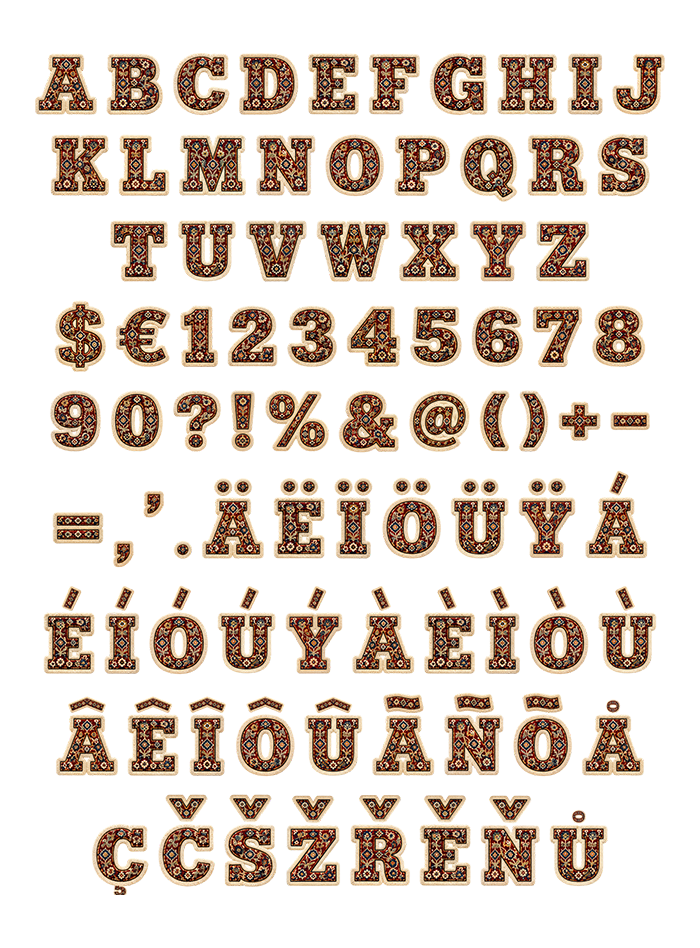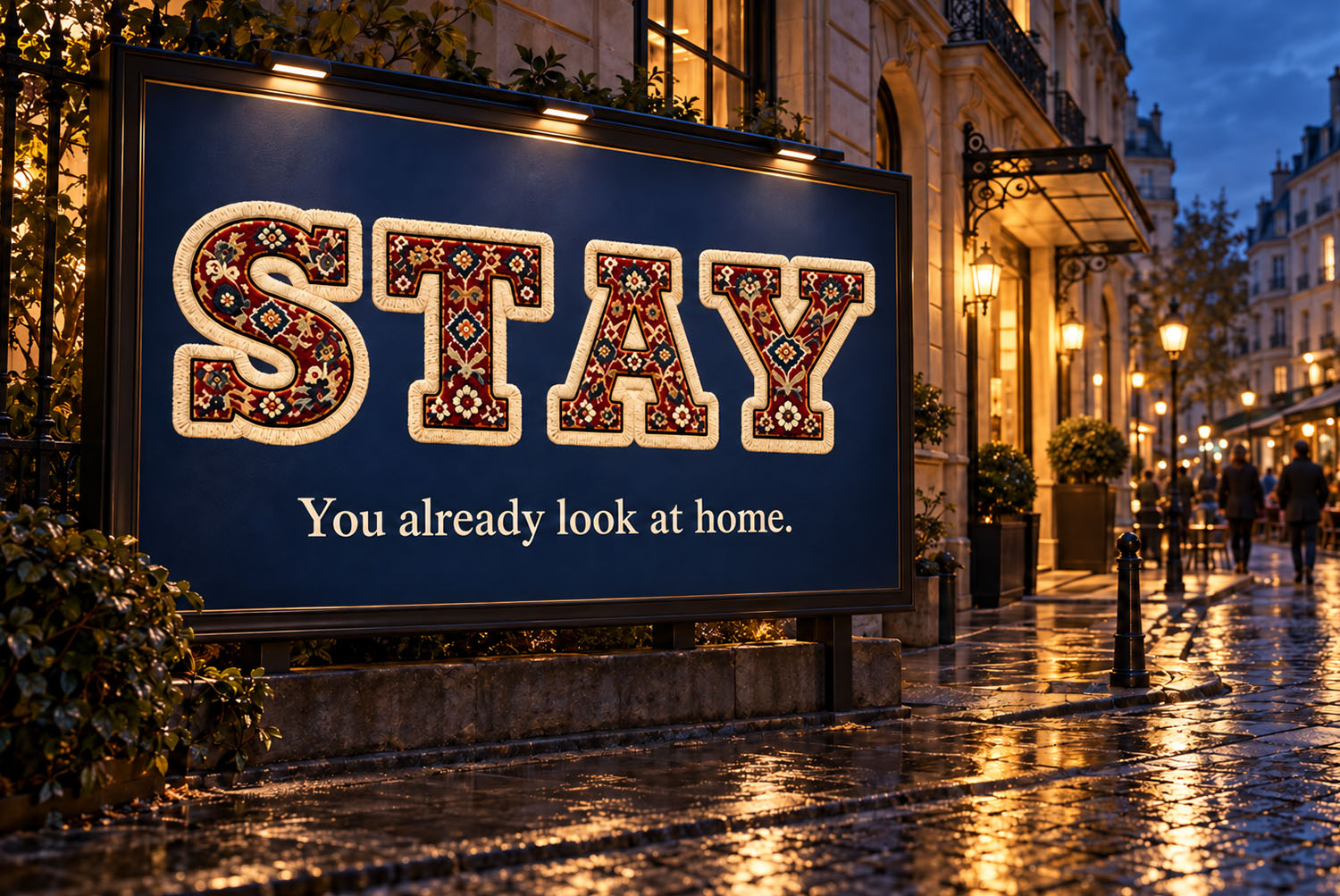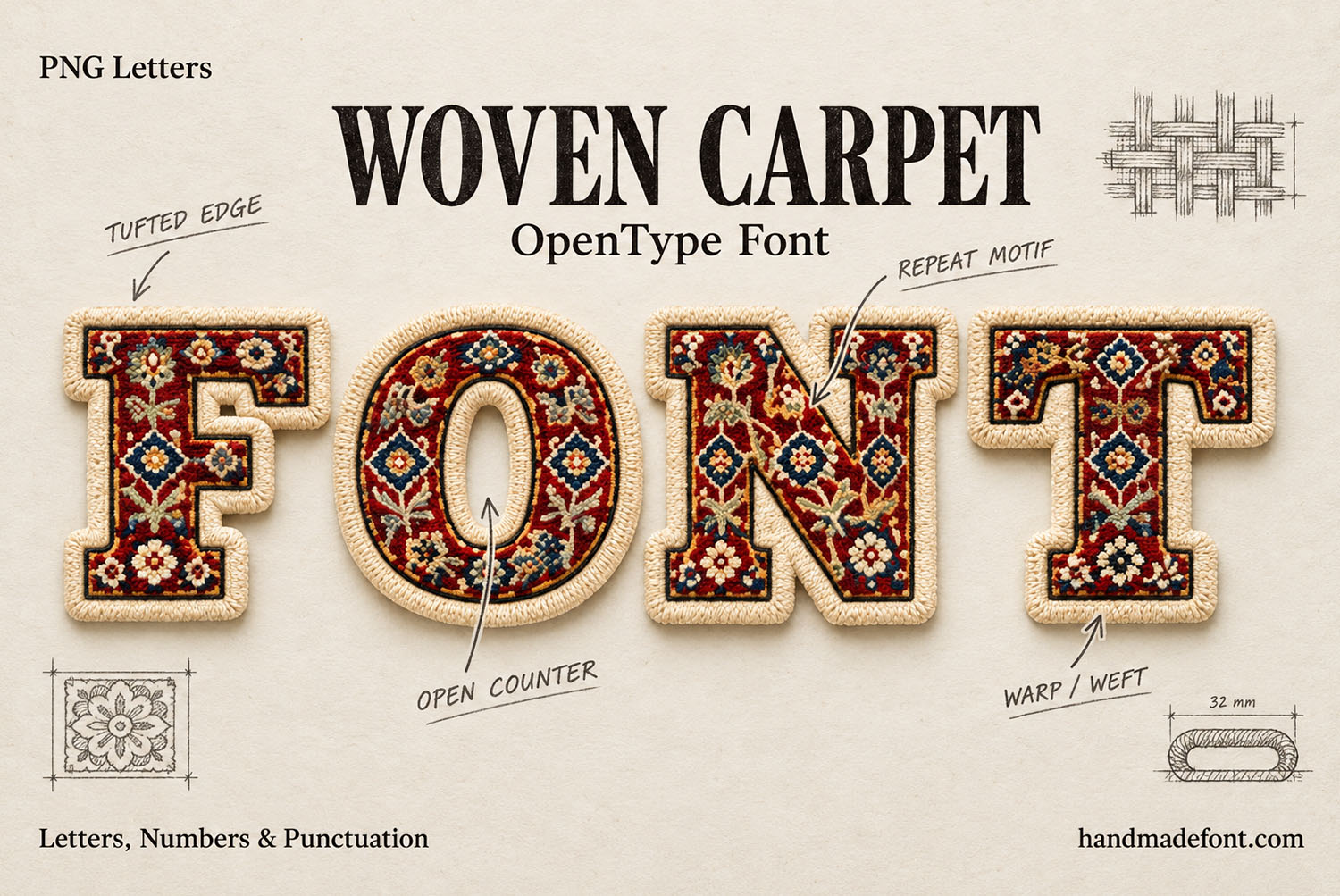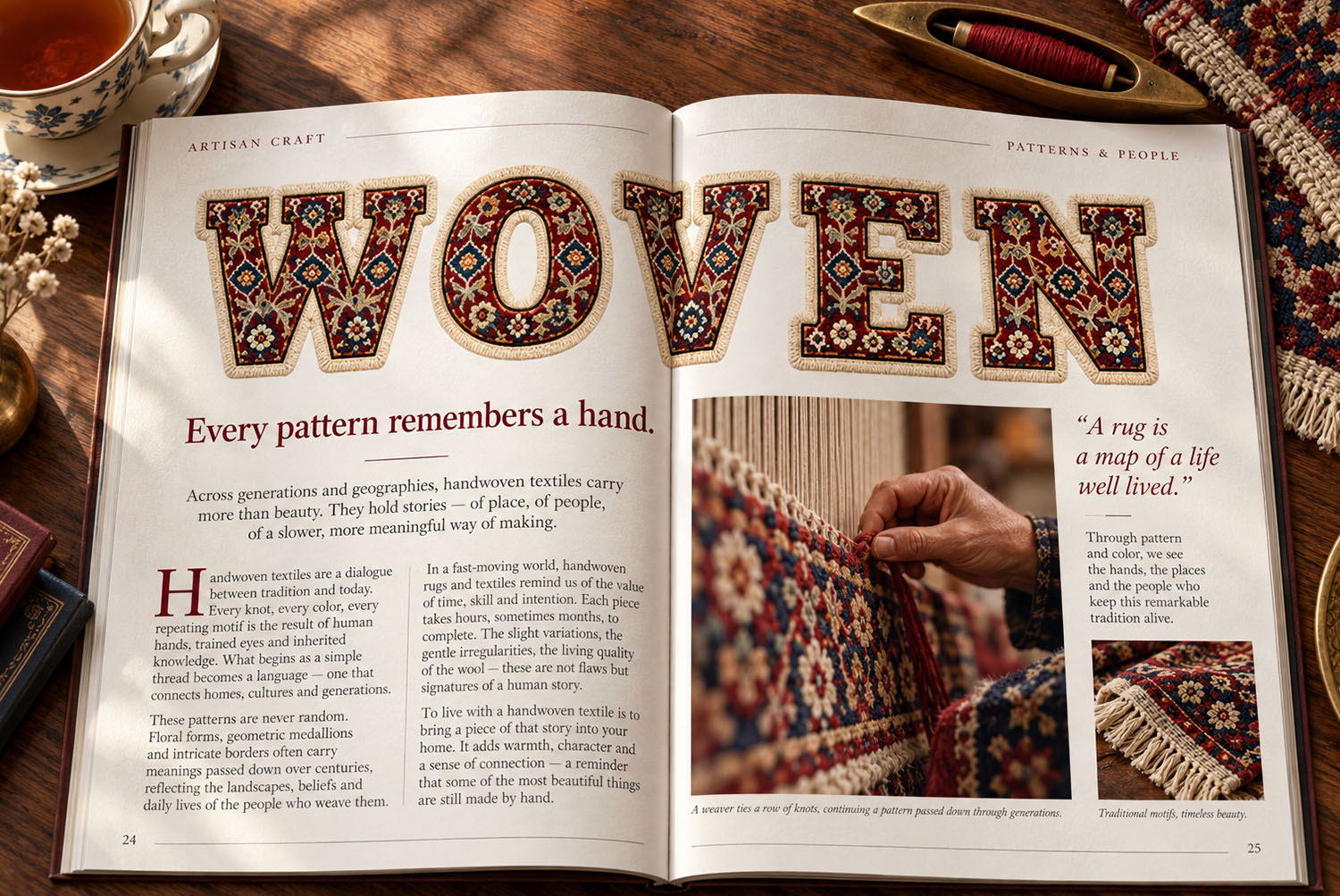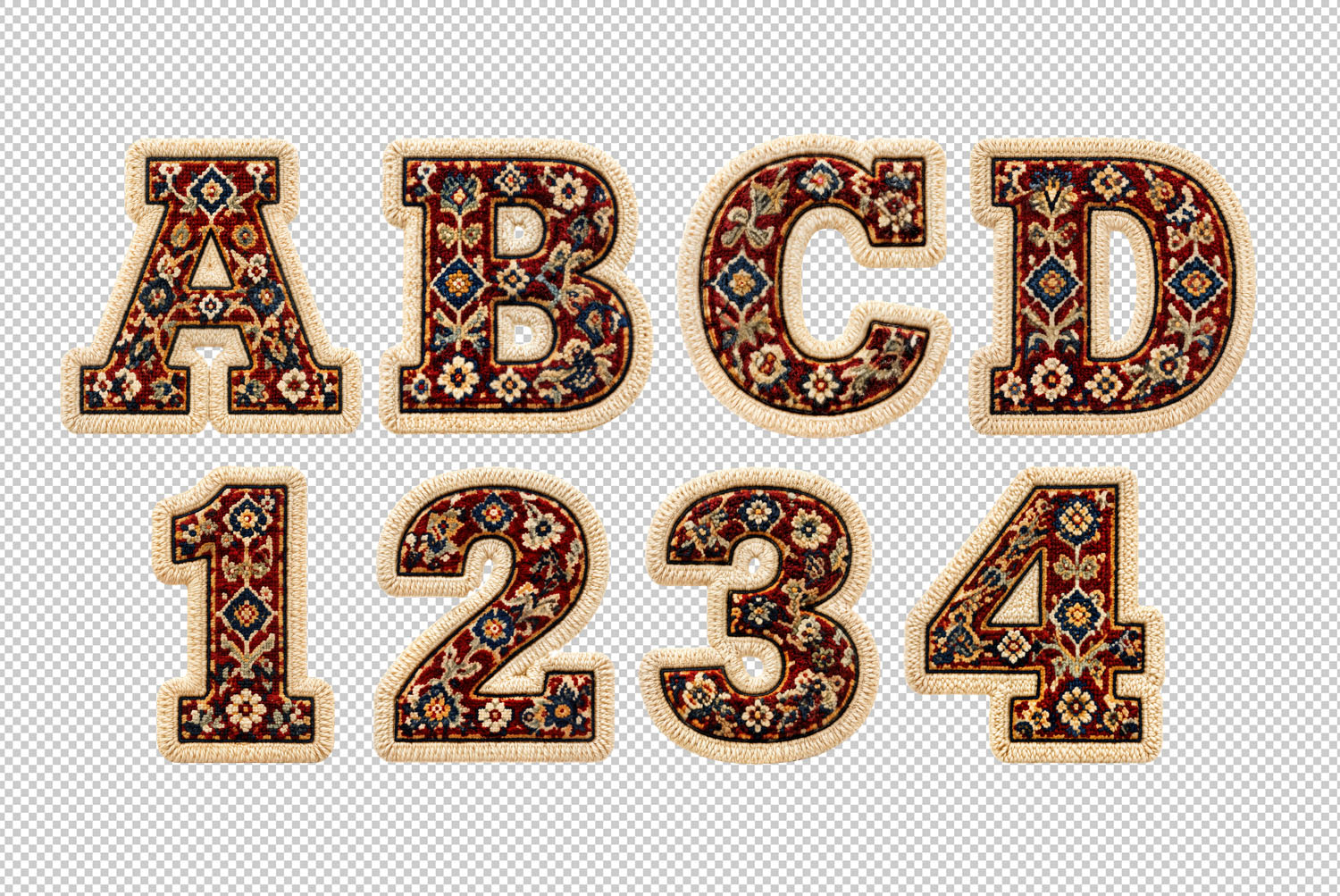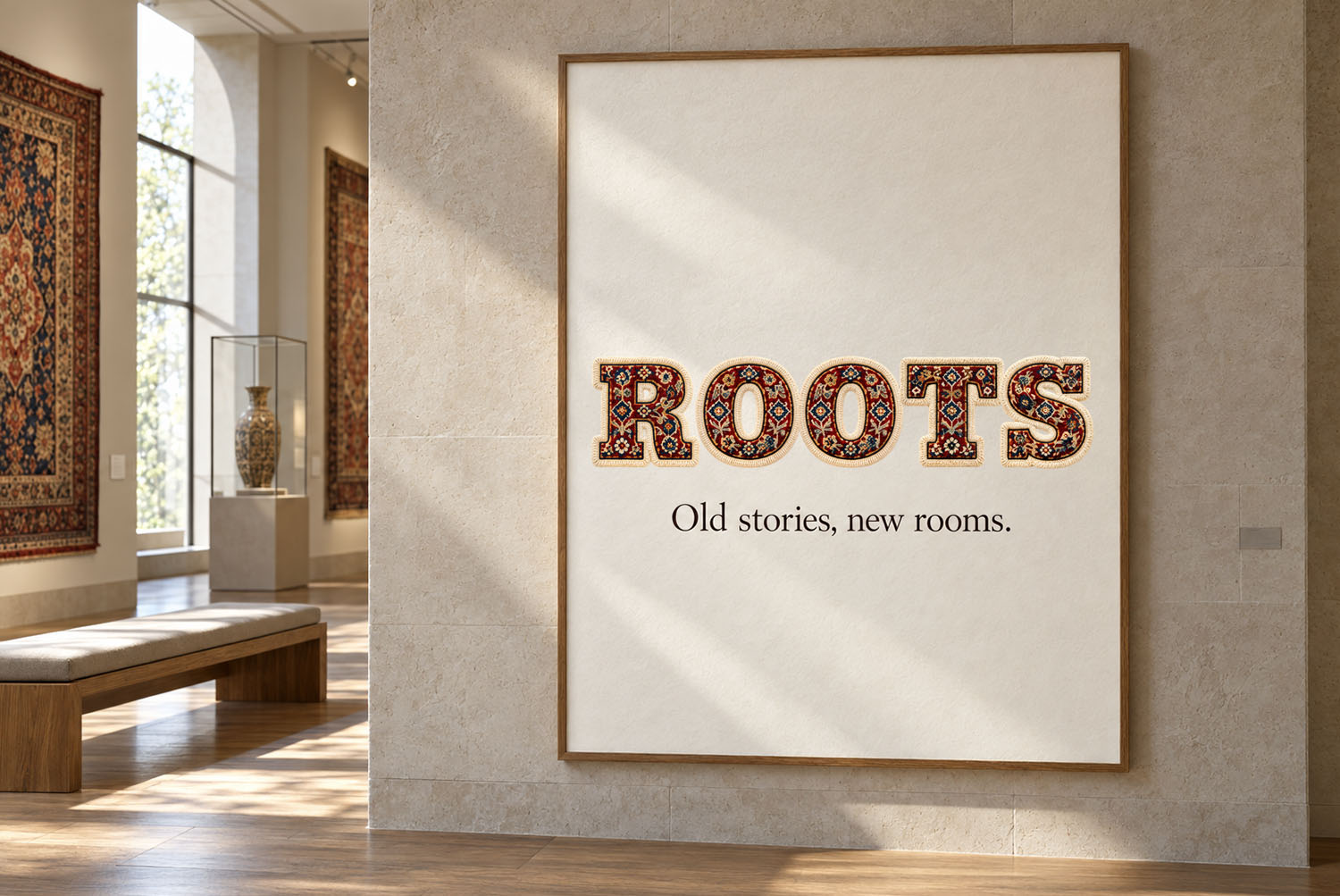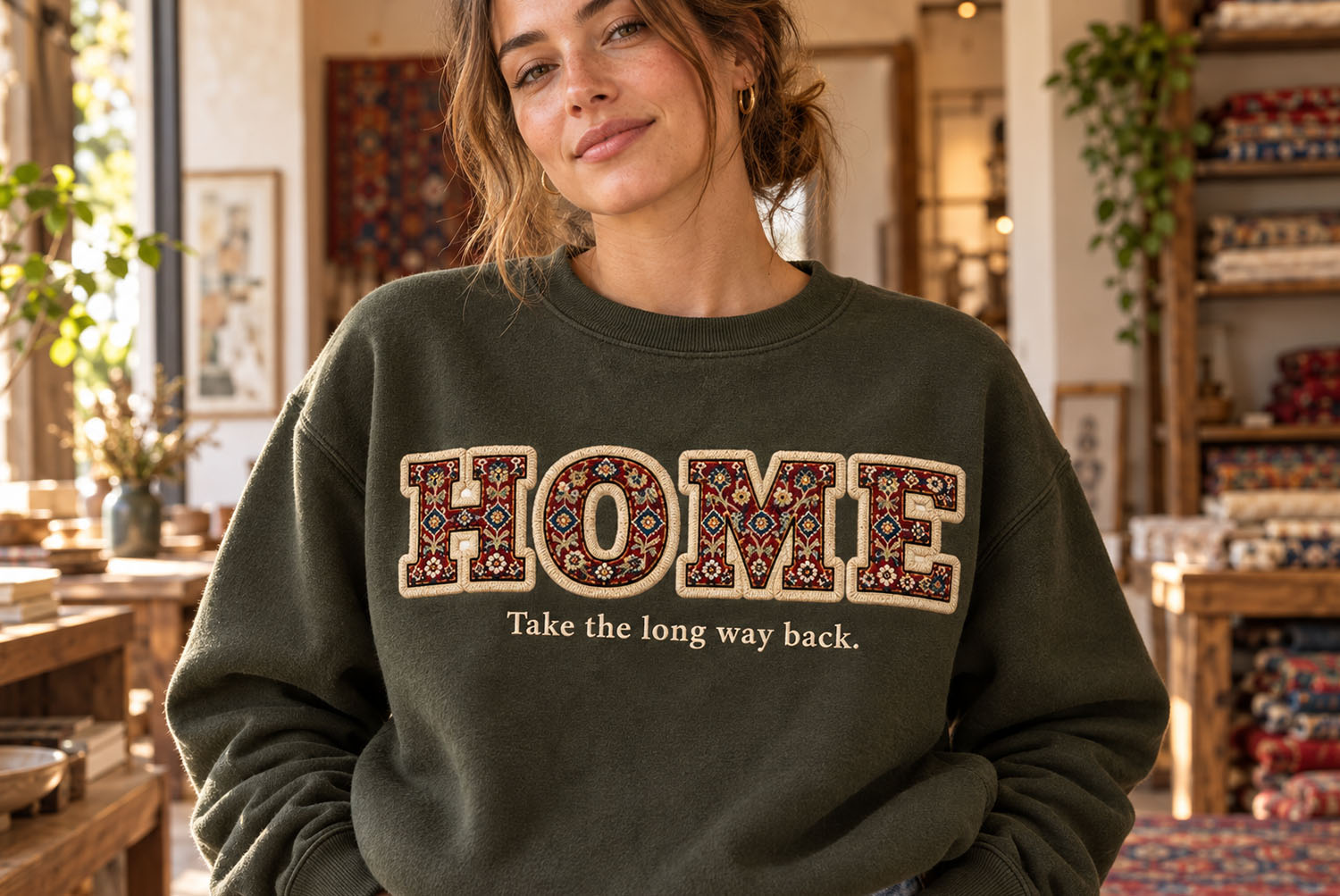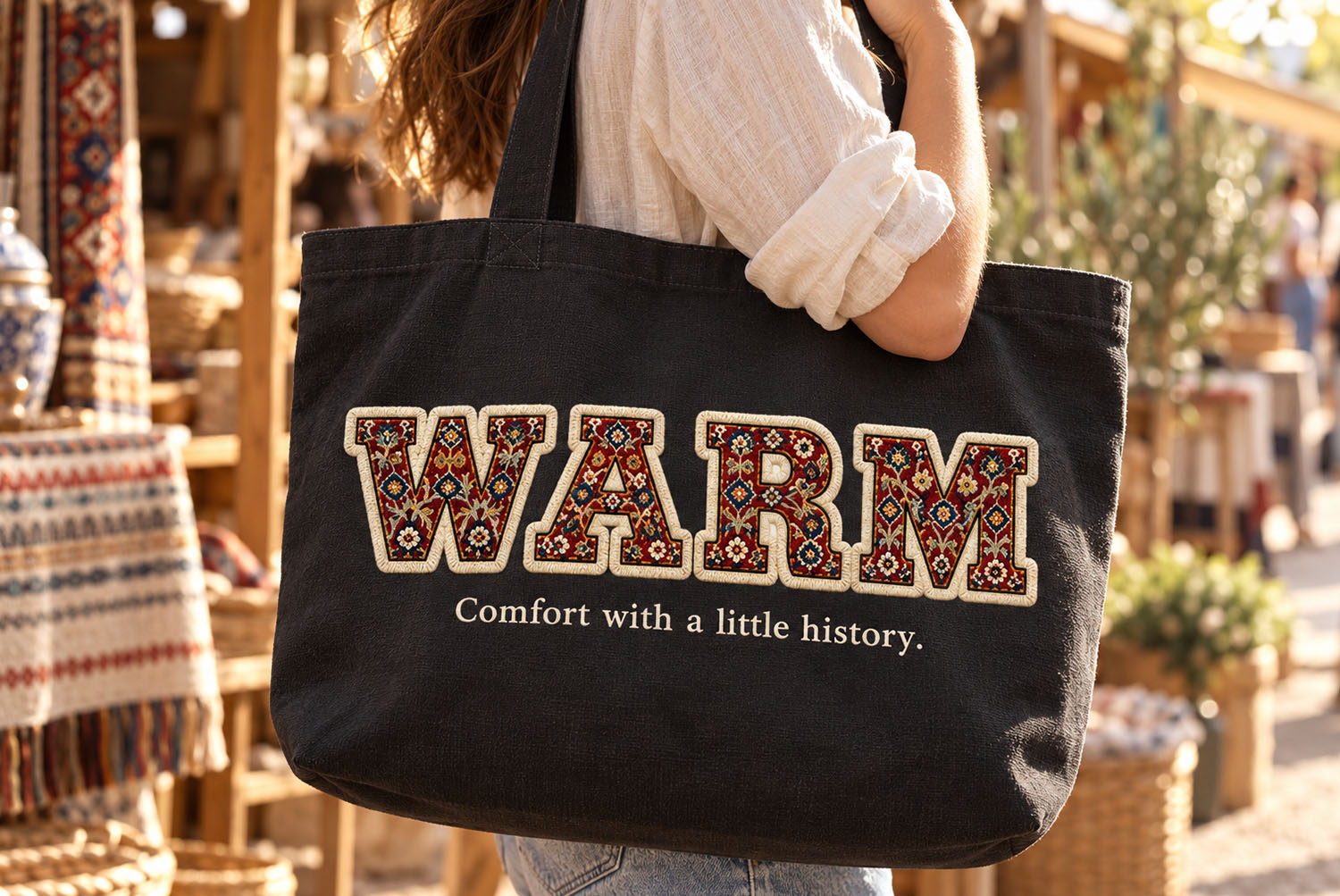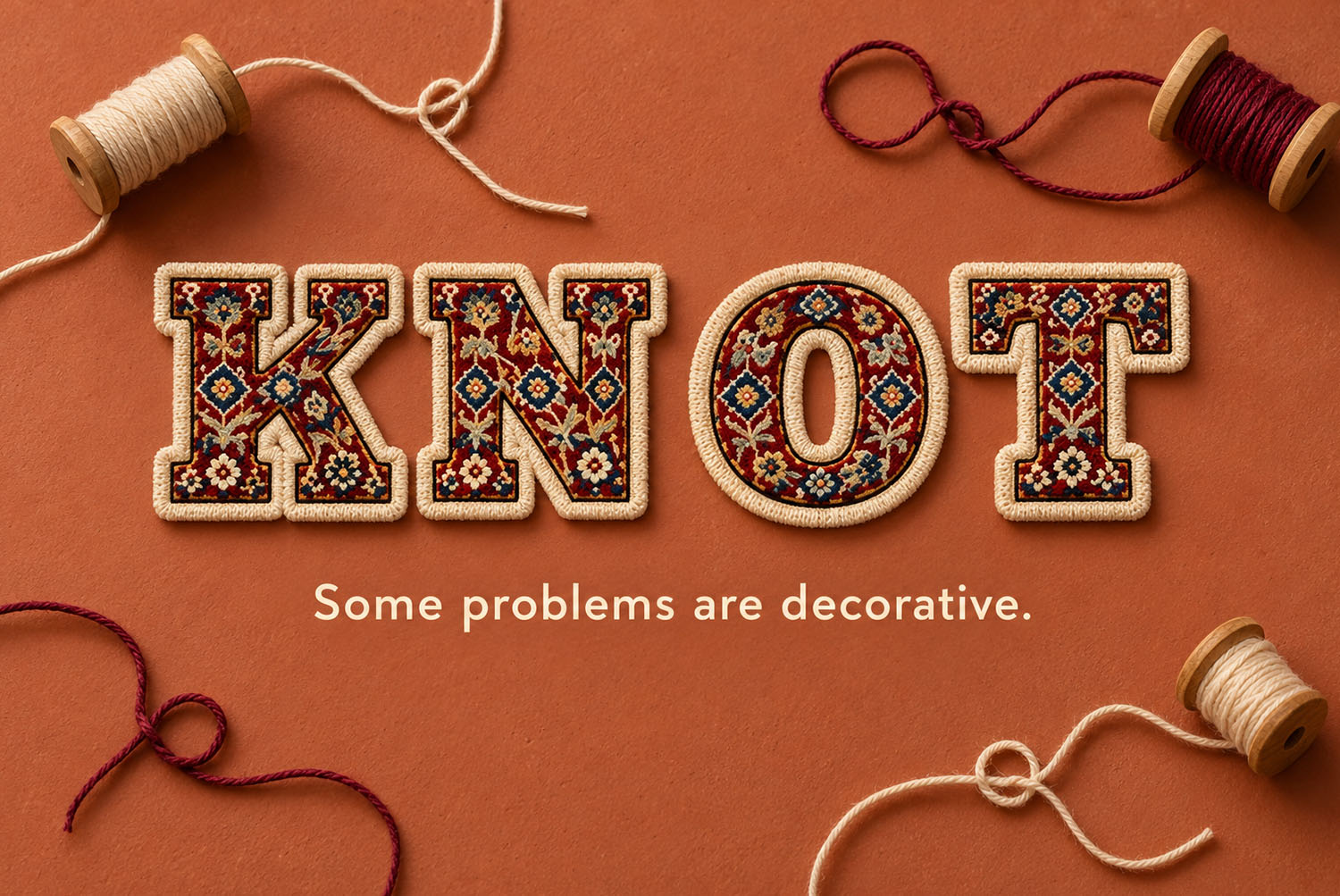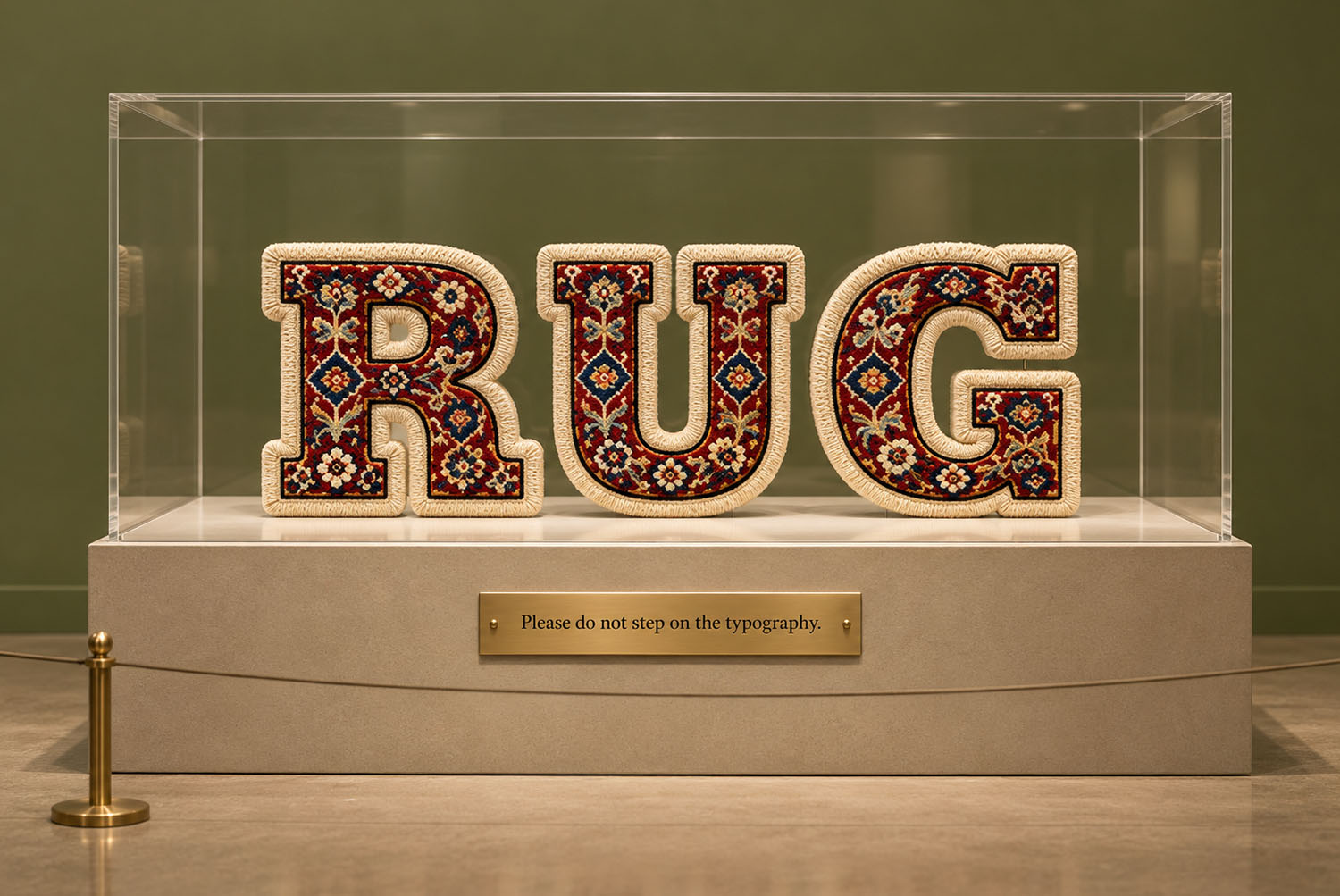
Woven Carpet Font. A Persian Rug You Can Type
Woven Carpet Font turns sturdy slab serif capitals into little rugs. A deep red knotted pile fills every stroke, navy and ivory blossoms scatter across it, and a thick cream wool binding runs round each edge. It installs as an OTF you can type with, and separate high-resolution PNG letters on transparent backgrounds come too.
Woven Carpet Font, Knot by Knot
Picture the old rug from a grandmother’s hallway, then imagine it cut into letters. Naturally, the Woven Carpet Font starts right there, with sturdy slab serif capitals. Because the strokes are so wide, the pattern has room to breathe. Deep madder red fills each stroke, while navy and ivory blossoms bloom across it.
If you look closer, the knots themselves show up. Every tiny loop of pile catches the light, so the surface reads soft rather than printed. Meanwhile, a thin navy line holds the pattern in place, like the border on a real rug.
Bound in Cream Wool
Then comes the edge, a thick cream binding overcast by hand the way rug makers finish a carpet. Because it is so pale, it lifts every capital off any background. So even on a busy photo, the Woven Carpet Font stays easy to read.
Open counters also help, since the background shows through an O or a B. In addition, the fibres on that binding look fuzzy and real. Nobody mistakes the letters for a flat print, of course.
Animated preview of the Woven Carpet Font cycling through rug-patterned slab serif letters
Where These Letters Feel at Home
Interiors come first, obviously. Rug shops, furniture brands and café menus suit it, because it promises warmth before anyone reads a word. For example, one mockup spells COZY above a linen sofa, while another puts HOME on a green sweatshirt.
Short words work best, since every letter carries so much detail. Therefore, keep Woven Carpet Font headlines to one or two words and let a plain serif handle the rest. Likewise, the pattern glows on a red velvet stage, a gallery plinth or a billboard at night.
Woven Carpet Font cover spelling FONT on cream paper with a wool tassel and a small rug swatch
Woven Carpet Font alphabet, figures and accented capitals set on a black background
Ampersand and at sign from the Woven Carpet Font on a pale blue background
Woven Carpet Font spelling STAY on a navy billboard on a wet city street at night
Magazine spread with the headline WOVEN set in the Woven Carpet Font beside photos of a loom
Transparent PNG letters A B C D and figures 1 2 3 4 from the Woven Carpet Font
Woman in a green sweatshirt printed with HOME in the Woven Carpet Font
KNOT spelled in the Woven Carpet Font on terracotta with thread spools and loose yarn
Black tote bag printed with WARM in the Woven Carpet Font at a market stall
The word COZY in the Woven Carpet Font above a linen daybed in a sunlit living room
RUG in the Woven Carpet Font standing in a glass museum display case with a brass plaque
SOFT in the Woven Carpet Font on a plinth with a weaving shuttle and balls of cream yarn
WOW in the Woven Carpet Font on a round red stage under a spotlight with tassels
Framed poster with the word ROOTS in the Woven Carpet Font hanging in a bright gallery
Annotated cover of the Woven Carpet Font with the word FONT and sketch notes on the tufted edge and the weave